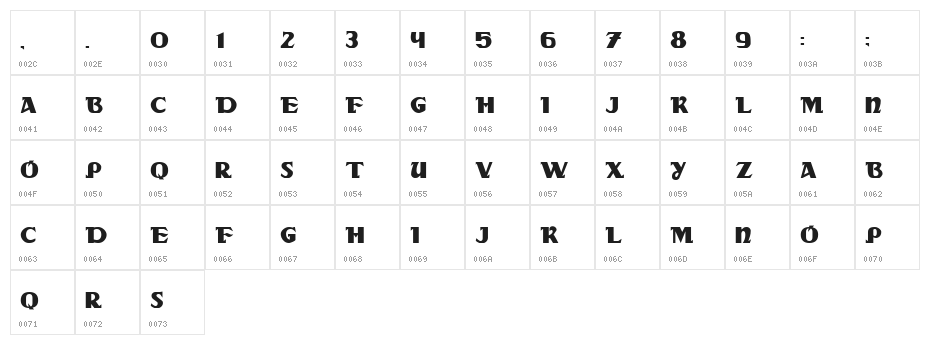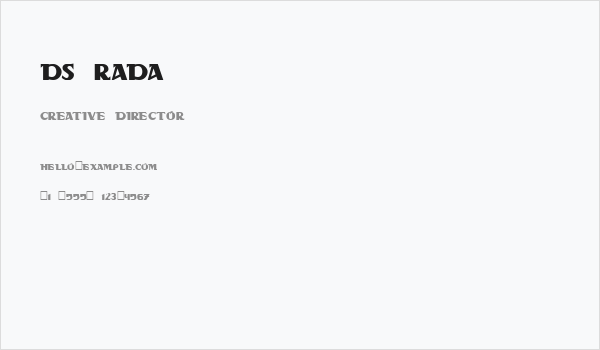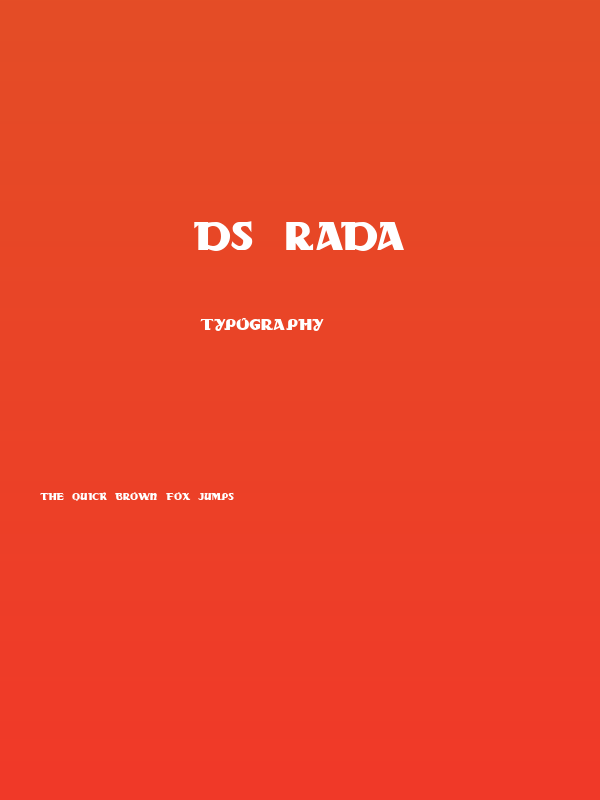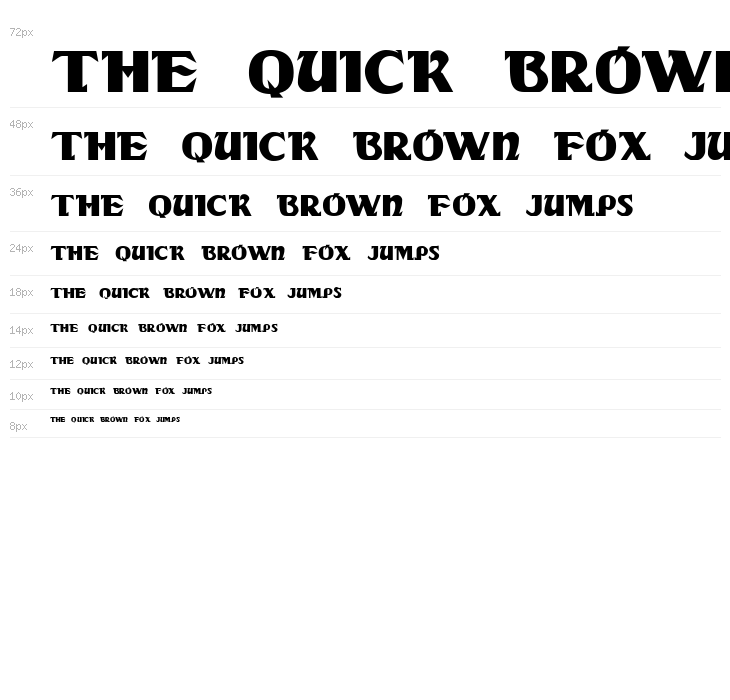
DS Rada Font
DS Rada Description
This font features bold, angular characters with a strong presence, reminiscent of traditional blackletter styles but with a modern twist. The uppercase letters are particularly striking, with sharp edges and a sense of movement that adds dynamism to the text. The lowercase letters maintain this boldness, ensuring consistency across the typeface. Numbers are equally robust, making them suitable for impactful displays. The font's unique style is further emphasized by its high contrast in stroke thickness, which enhances readability while maintaining its decorative appeal.
| Proposed Projects | Ideal for branding, headlines, posters, and any project requiring a strong, distinctive typeface. |